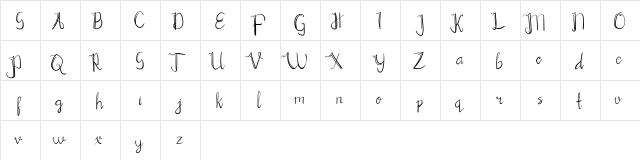
Chrisyard Script Regular
Design Context for Chrisyard Script Typeface
Chrisyard Script flows with the natural rhythm of handwritten lettering, making it ideal for designs that call for warmth and personal expression.
Font Pairing: Combine Chrisyard Script with a simple geometric sans for maximum contrast — the tension between flowing curves and clean structure is a classic typographic pairing.
Pro Tip: Pair Chrisyard Script with a clean sans-serif for supporting text. The contrast between fluid script and geometric structure creates an elegant typographic hierarchy.